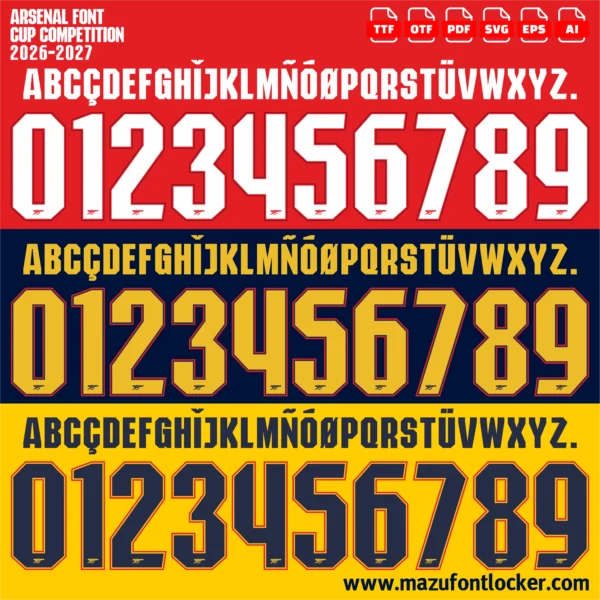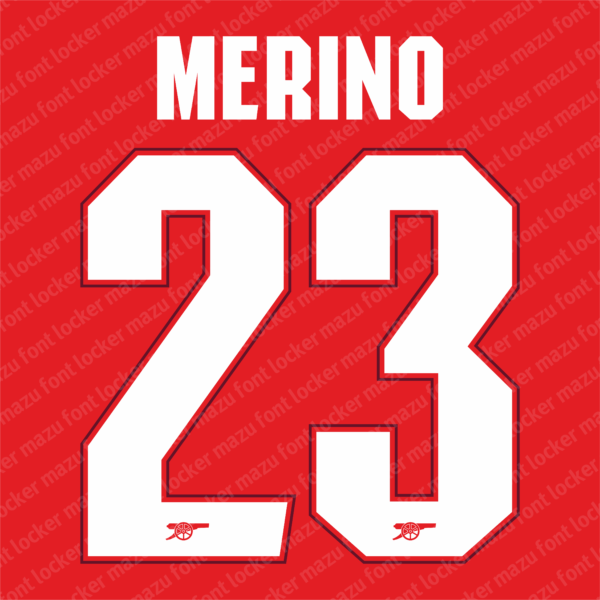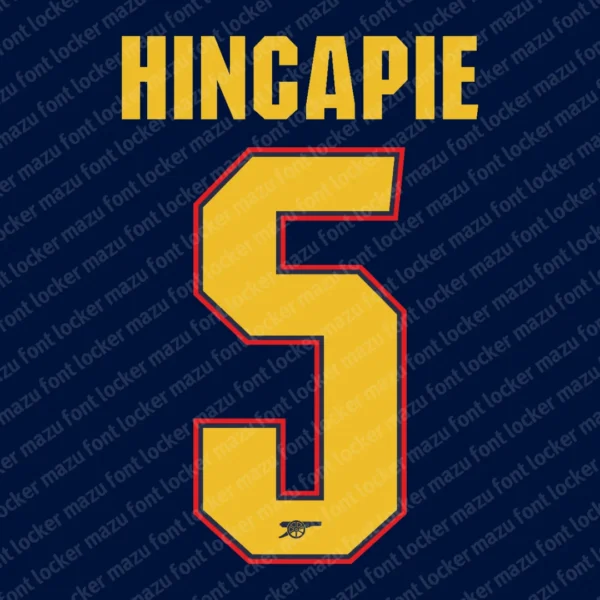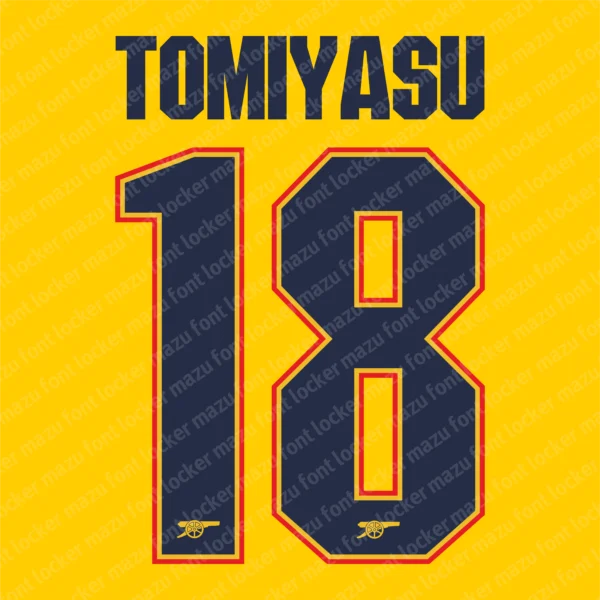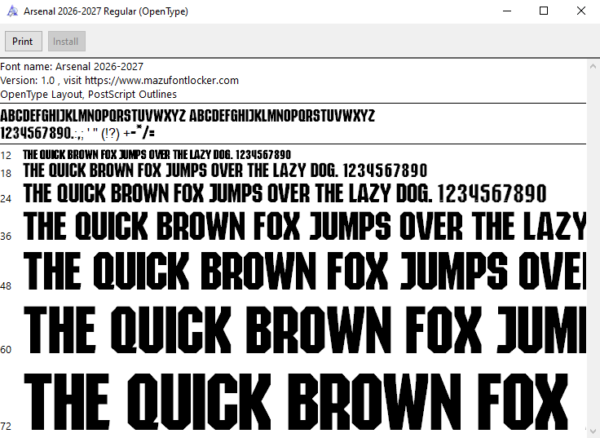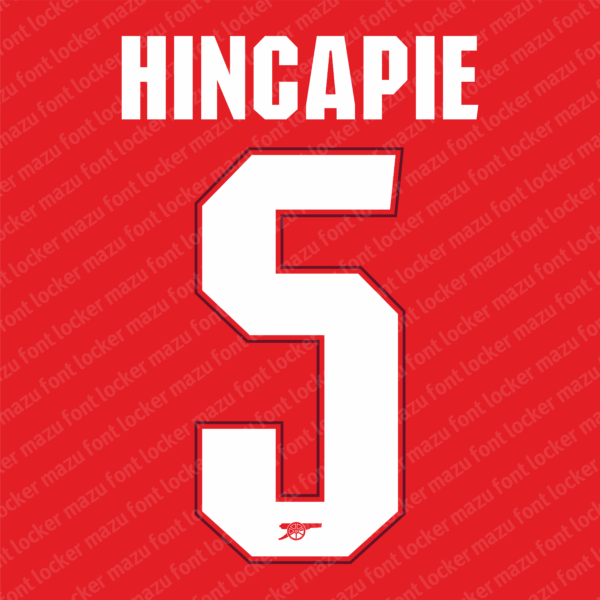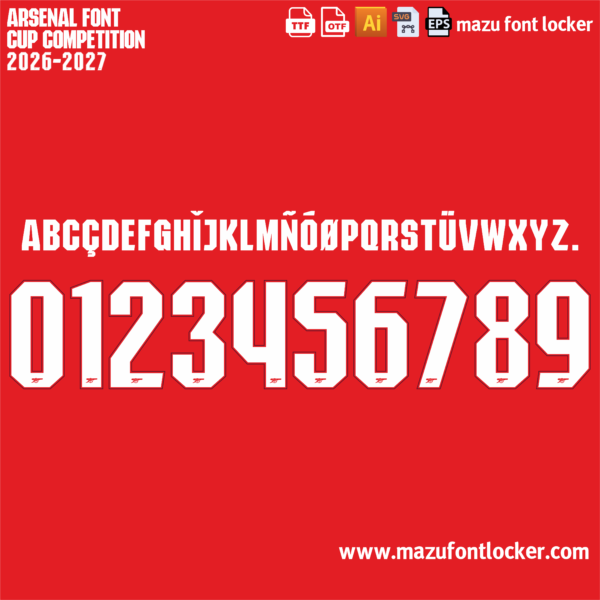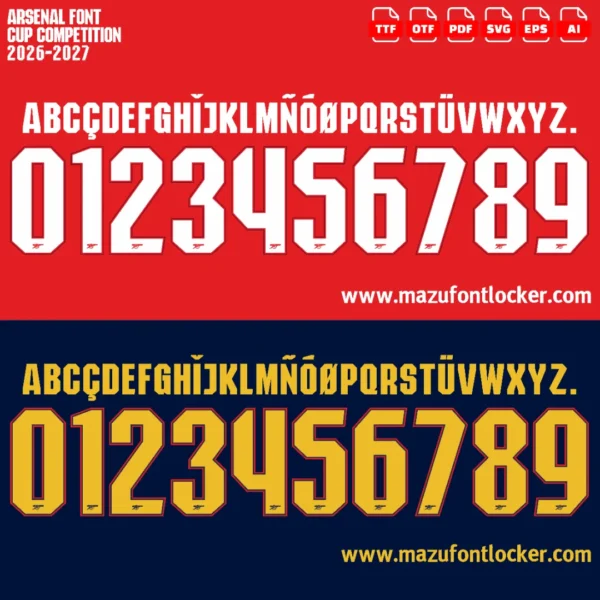
Arsenal 2026-2027 Font Vector – Epic Unstoppable Gunners Masterpiece
Download the Arsenal 2026-2027 Font Vector (AI, EPS, SVG, PDF, OTF, TTF) and unleash the sharp, relentless, and explosively dominant match typography that defined Arsenal’s legendary 2026-2027 campaign as they conquered with unbreakable North London steel, ferocious fighting spirit, and true Gunners warrior mentality on the pitch.
This font captures the commanding, razor-edged, thunderous, and precision-engineered lettering that perfectly embodies Arsenal’s iconic club identity, proud English heritage, never-say-die mentality, and raw football power — delivering unmatched authenticity, premium quality, explosive energy, and elite Premier League & international dominance for professional jersey mockups, dynamic football graphics, premium sports branding, passionate fan creations, and high-end design projects.
Arsenal 2026-2027 Font Vector – Iconic Red & White Typeface
The Arsenal 2026-2027 Font Vector is a premium typeface that accurately recreates the official match lettering worn by Arsenal during the 2026-2027 season. This high-quality vector font kit captures the bold, clean, and instantly recognizable typography that perfectly complements the club’s iconic red and white identity.
Designed for professional designers, football enthusiasts, and passionate Arsenal supporters, the Arsenal 2026-2027 Font Vector delivers exceptional authenticity for creating realistic jersey mockups, football merchandise, social media graphics, match posters, and custom fan artwork. Every character has been carefully recreated to match the powerful and precise visual style of one of England’s most historic Premier League clubs.
This font stands out thanks to its precise vector construction and authentic club styling. Every letter and numeral has been meticulously recreated to match the official shirt lettering used throughout the 2026-2027 Premier League and cup campaigns. Whether you’re producing professional kit templates or creating eye-catching football content, the Arsenal 2026-2027 Font Vector delivers a genuine match-ready appearance.
The lettering featured in the Arsenal 2026-2027 Font Vector combines clean geometric lines with powerful modern proportions. The result is a premium and highly readable typeface that reflects Arsenal’s attacking spirit, precision, and passionate fanbase in English football.
- Complete uppercase A–Z alphabet and numbers 0–9 in authentic Arsenal 2026-2027 style
- Includes authentic Premier League badge glyph placement beneath player numbers
The Arsenal 2026-2027 Font Vector is an independently designed typeface package inspired by the official shirt lettering for the 2026-2027 season. It has been carefully recreated for football enthusiasts, graphic designers, collectors, and creators producing custom jersey concepts, football artwork, and fan-made projects.